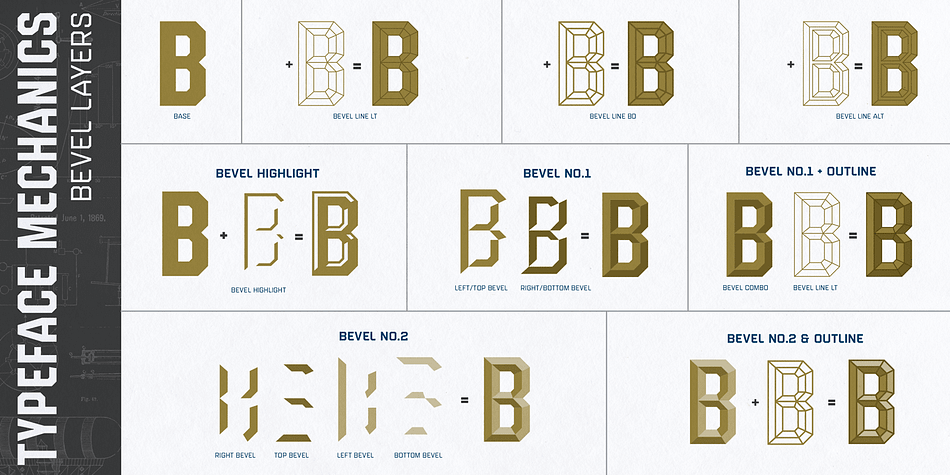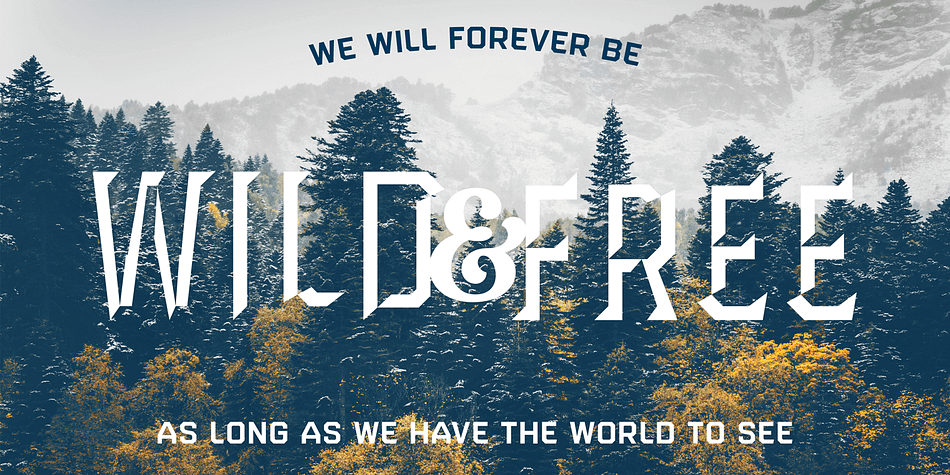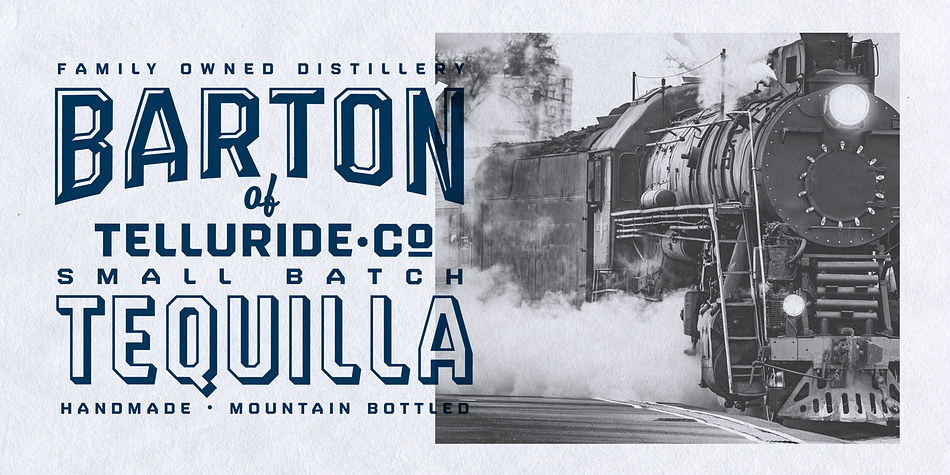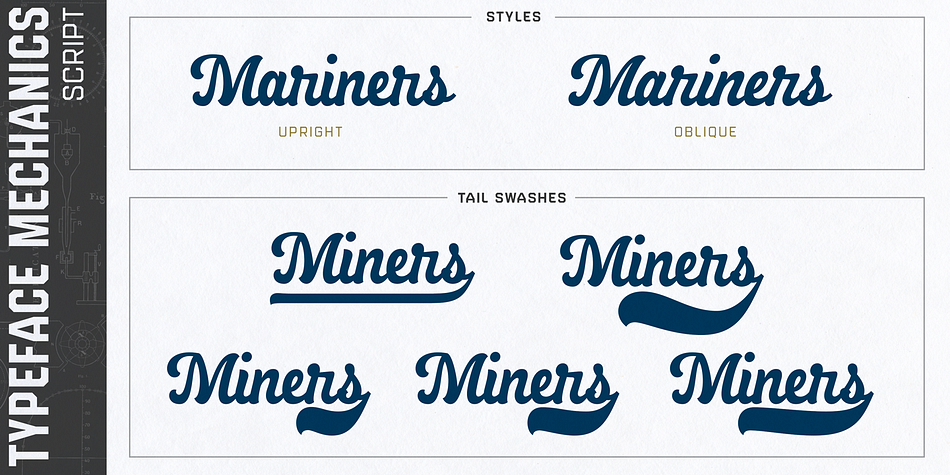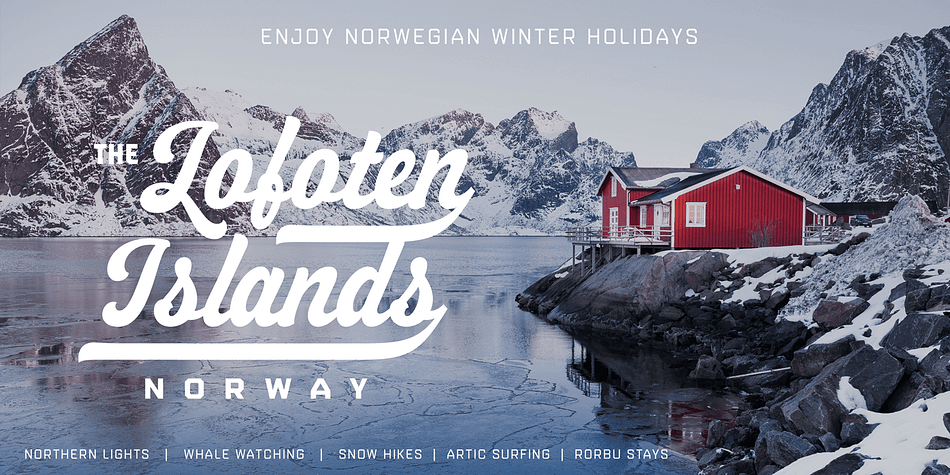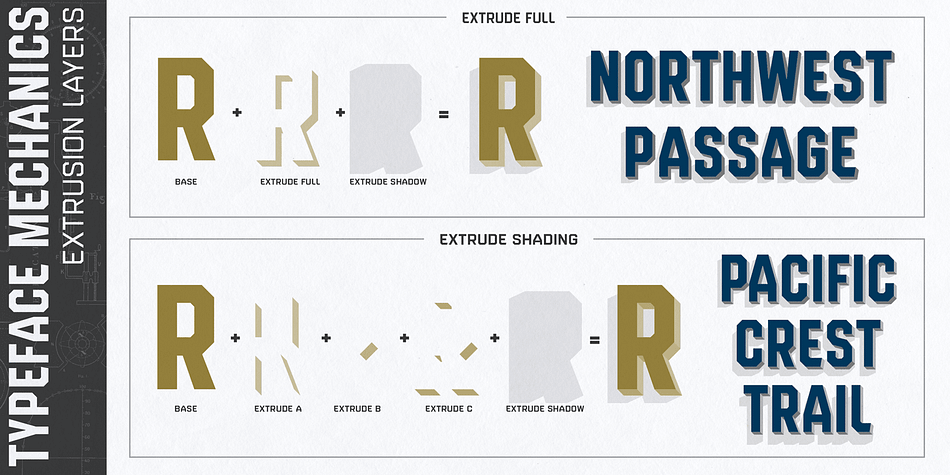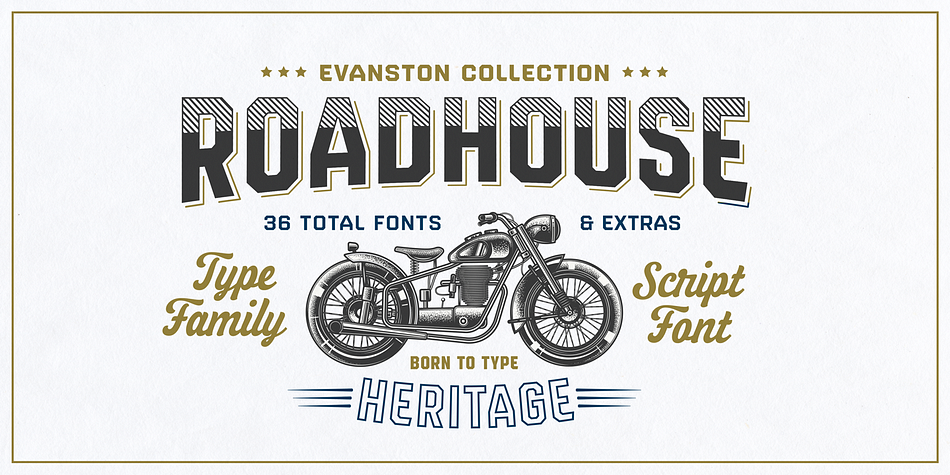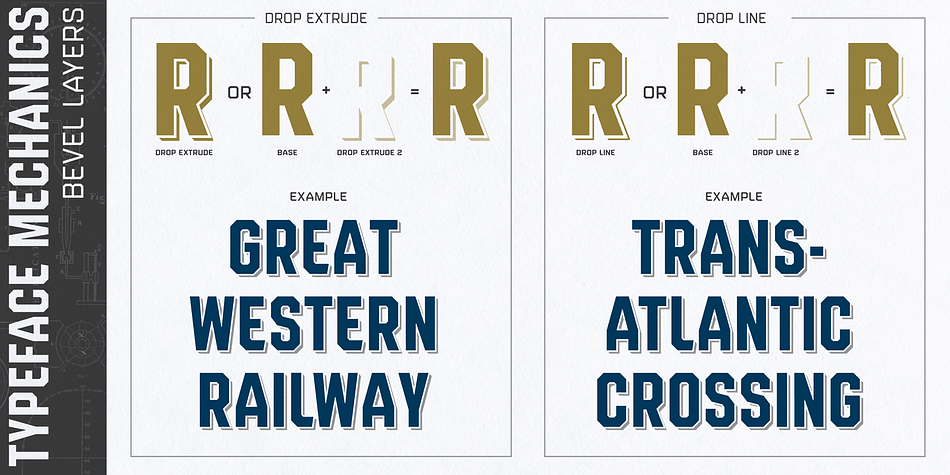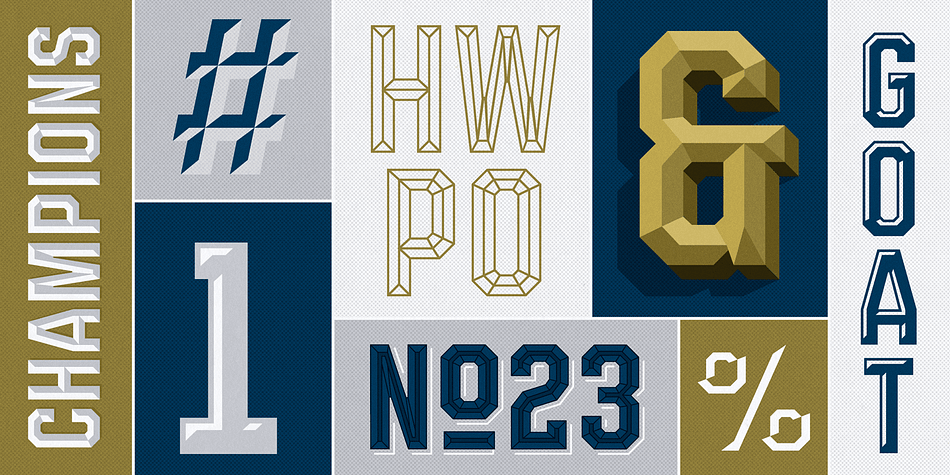
ROADHOUSE
Designed by Kimmy Kirkwood, Roadhouse is a brush script and display sans font family. This typeface has forty-one styles and was published by Kimmy Design.
Roadhouse is a layering typeface family that is part of the greater Evanston type collection, which is inspired by American typefaces commonly used at the turn of the century leading up to Prohibition. Roadhouse reflects the style of lettering used on tavern signage and printed ephemera during the early 20th century.
The family comes with 31 layering fonts, from top layers like bevels, highlights, stripes, outlines, as well as extruding and drop layers. It also includes 2 script fonts, upright and oblique, as well as 9 complimentary text fonts for smaller text settings.
Either get the entire family of extrusions, bevel angles or the basic family with ready to use fonts that don’t need to be layered. Roadhouse is a great display typeface for logos, branding, packaging, and advertising.